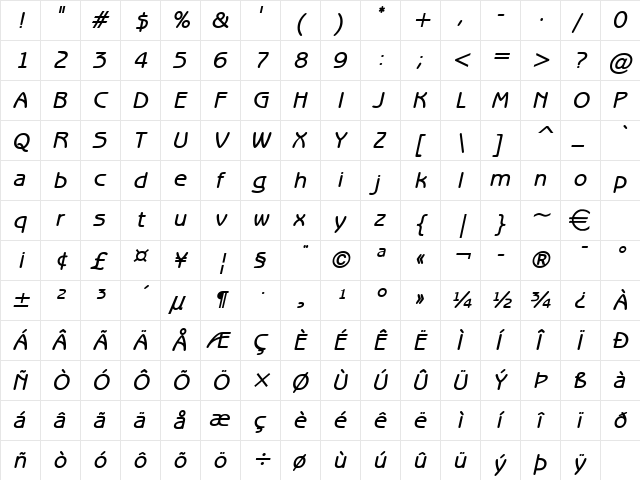
Beagle BoldItalic
Design Context for Beagle Typeface
Beagle takes a measured approach to typography — its balanced proportions and neutral character make it a reliable workhorse for both digital and print work. The slanted form adds forward momentum and visual energy. The heavy weight commands attention and anchors typographic hierarchies.
Pro Tip: Use Beagle for emphasis, pull quotes, and subheadings where its slanted energy can add rhythm to the layout.